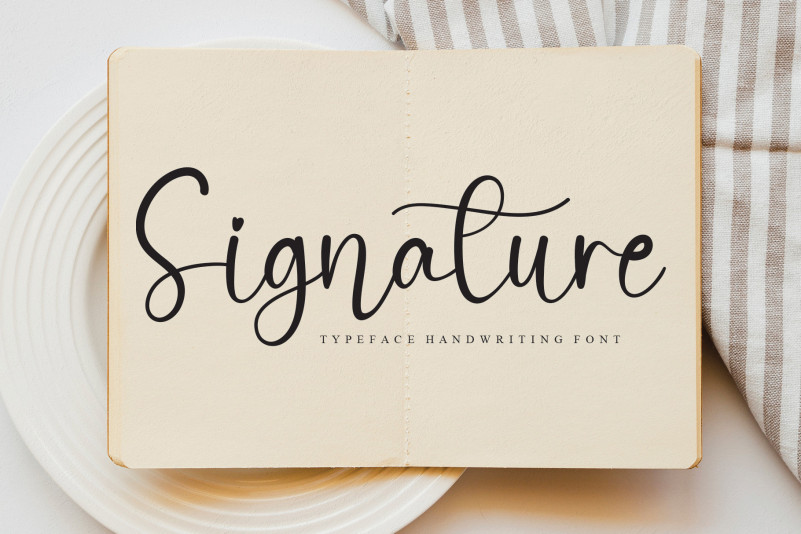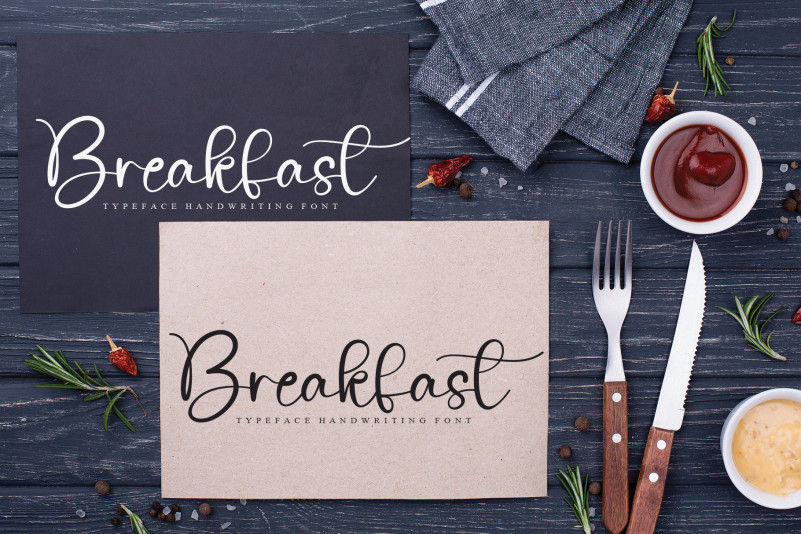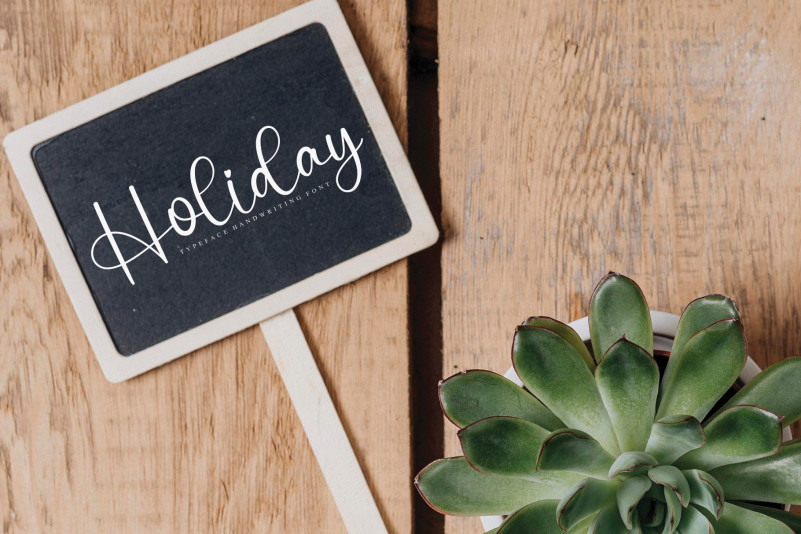
Hello Homework Script Font
Introducing Hello Homework Script Font – The latest style letters are perfect for wall displays, wedding invitations, social media post logos, advertisements, product packaging, product designs, labels, photography, watermarks, invitations, stationery,and any project that requires taste handwriting.